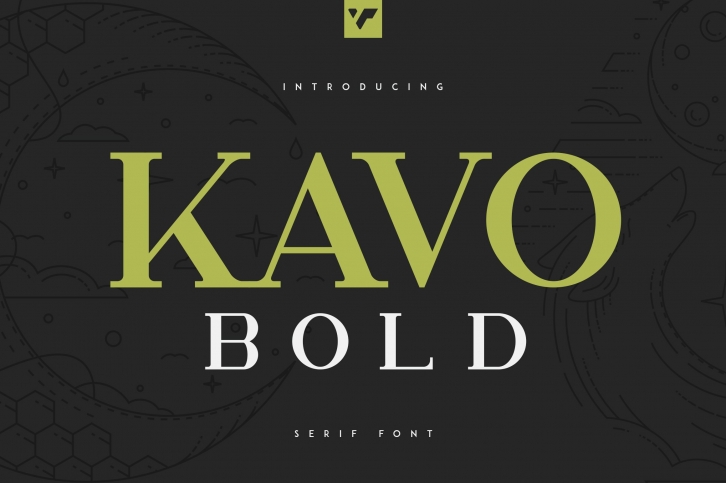
Kavo Serif Bold is a great font that was designed by VPcreativeshop. Imagine the amount of combinations you can create using this font! The archive is 10.91 MB and it was released on November 12, 2020. Kavo Serif Bold looks beautiful on wedding invitations, greeting cards, logos, posters, labels, t-shirt designs, logos, business cards and is perfect for use in ink or watercolor works, fashion, magazines, packaging and food menus, children's books and more!